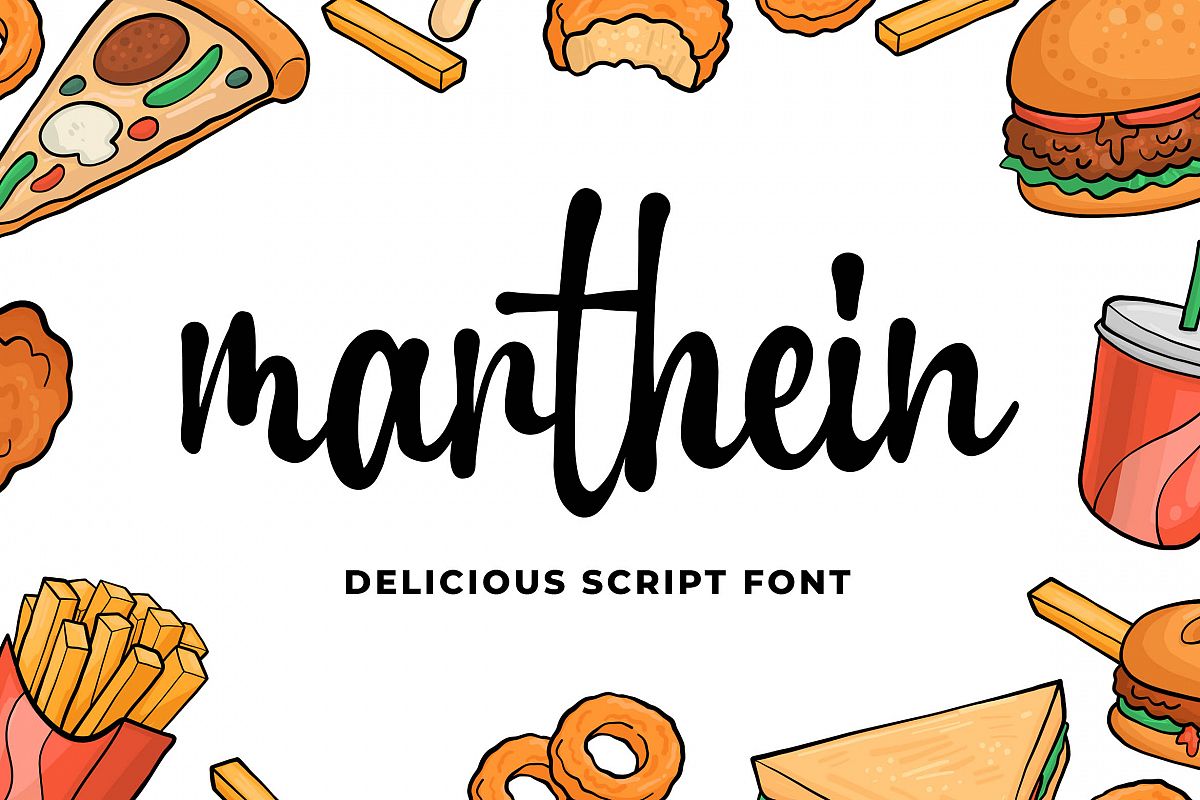
Introducing of our new product the name is Marthein Delicious Font. Marthein good for logotype, label, badge, headline, signature, packaging and any more.
MULTILINGUAL ACCENT :- ŽžŠŒšŸÀÁÂÃÄÅÆÇÈÉÊËÌÍÎÏÐÑÒÓÔÕÖØÙÚÛÜÝßàáâãäåæçèéêëìíîïñòóôõöøùúûüýÿ
FEATURES :- Uppercase